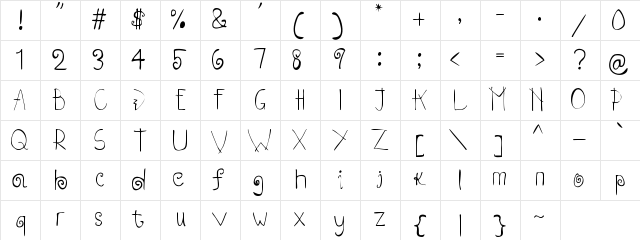
Robin normal
Style: normal
Robin Family
Design Context for Robin
Robin is a composed and adaptable typeface that performs quietly and consistently across a wide range of design contexts.